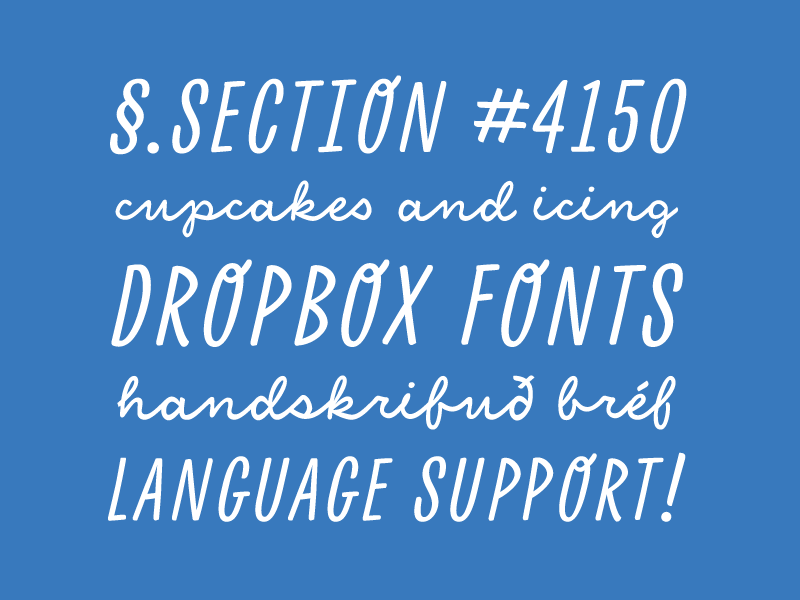
Dropbox Fonts
@Tymn Armstrong and @Garrett Prince asked me to make some fonts for @Dropbox.
This sans and script pairing is based closely on Tymn's sketches, and they work together to convey this human quality of whimsy and spontaneity. And with the help of @Dave Bailey these fonts now speak over 100 languages.